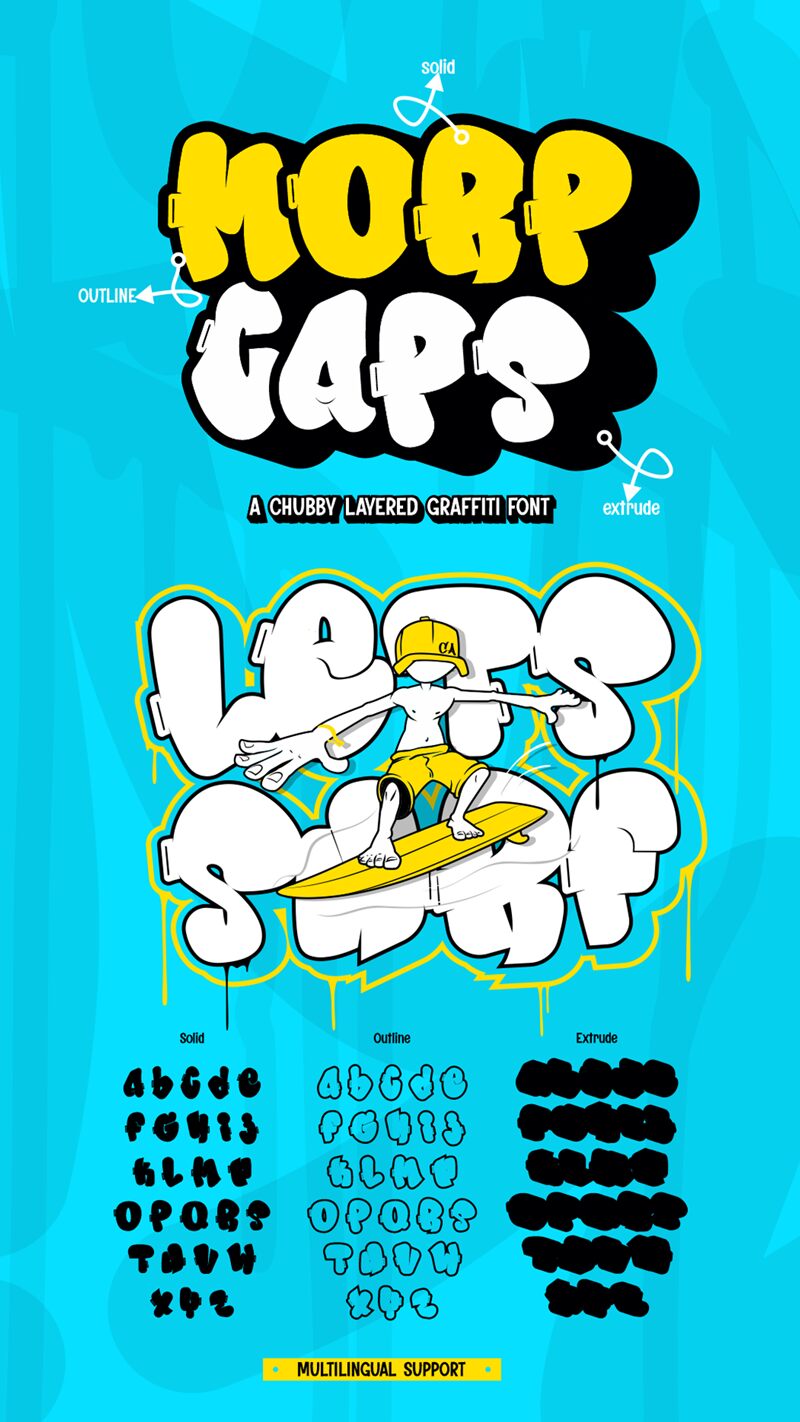
Morp Caps font family by Cikareotype Studio includes 3 font styles influenced by street-wise graffiti and bringing the same chubby shapes and dynamic forms. It is a free font for personal use, letting you redesign your own projects with an urban mindset. The font gets its inspiration from contemporary street art applications and all the energy they hold, and it features a layered effect when used with bold colors. Express your youthful ideas by being as expressive as you’d like with this rebellious aesthetic in place.
The Morp Caps font is fitting to display the various aspects of the graffiti universe as it combines the different styles and tastes from across the world, bringing their primary features together for a new experience. So nothing stops you from using it for digital designs like vivid apps and websites or from adding it to realistic artwork ranging from T-shirts and sweatpants to banners and store signs.